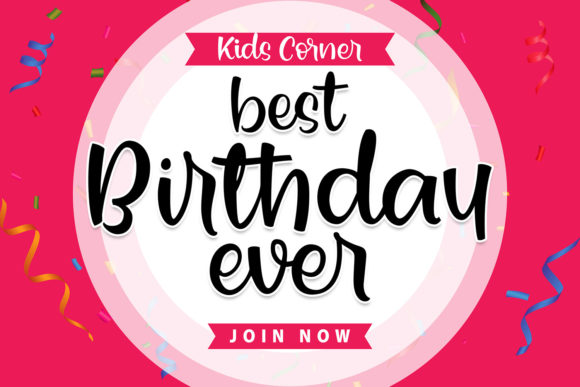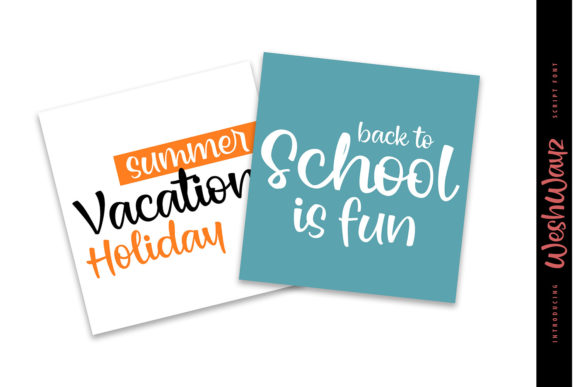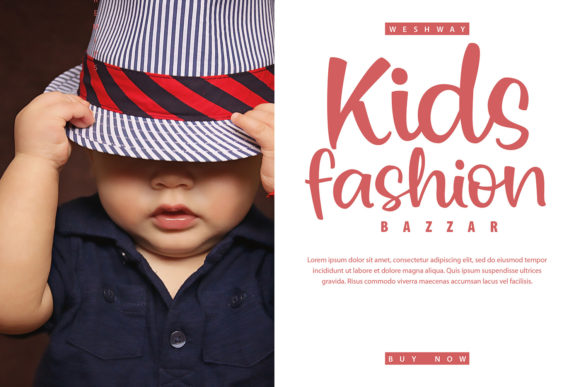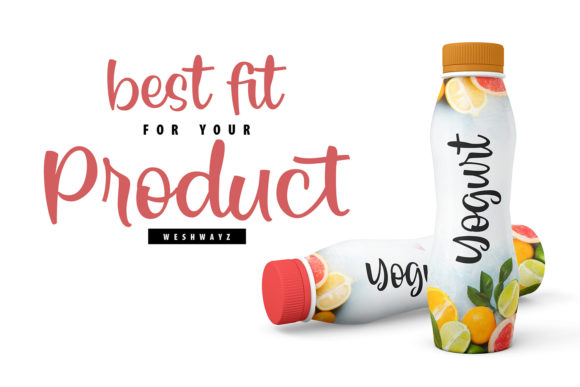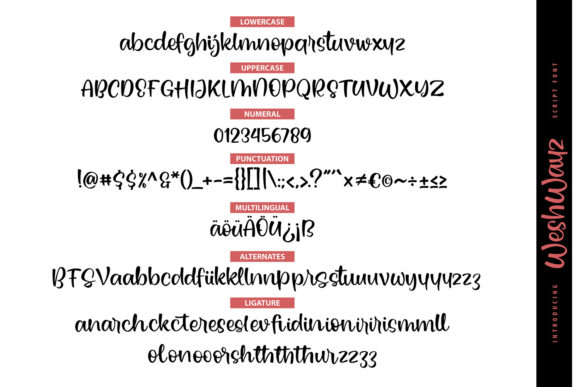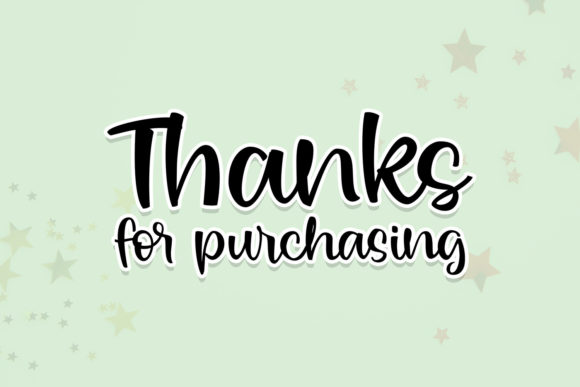
About Weshwayz Font
Weshwayz is a simple and flowing handwritten font. This adaptable font will look great on a variety of design ideas. Weshwayz is PUA encoded which means you can access all of the amazing glyphs and ligatures with ease!